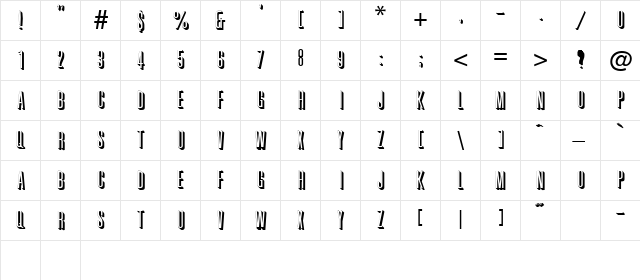
GLENNA Regular Font Preview
GLENNA Regular
GLENNA Regular Font Details
Design Context for GLENNA Typeface
GLENNA is a composed and adaptable typeface that performs quietly and consistently across a wide range of design contexts.